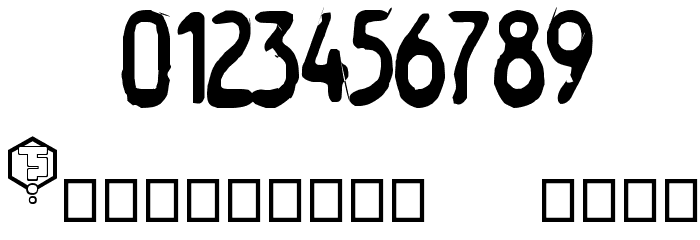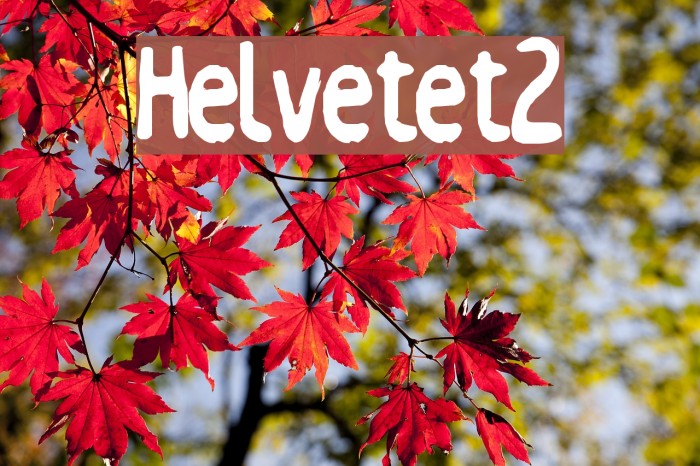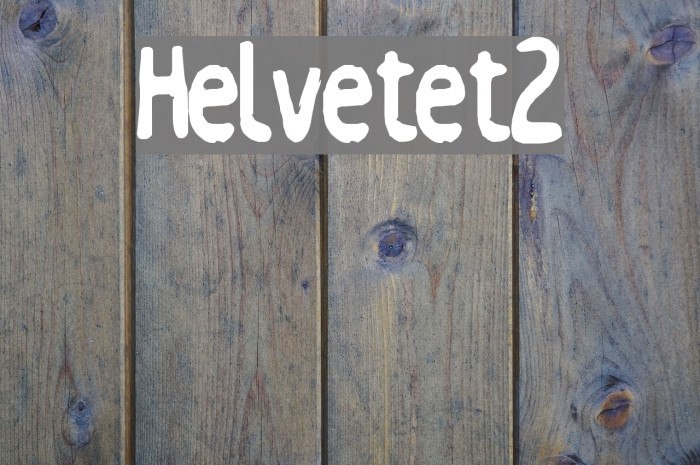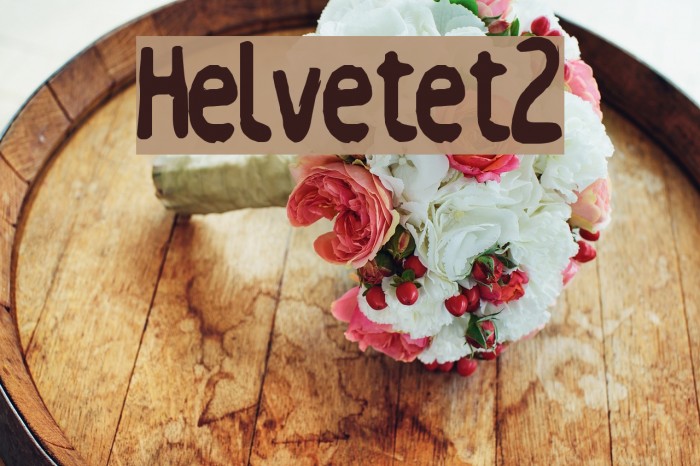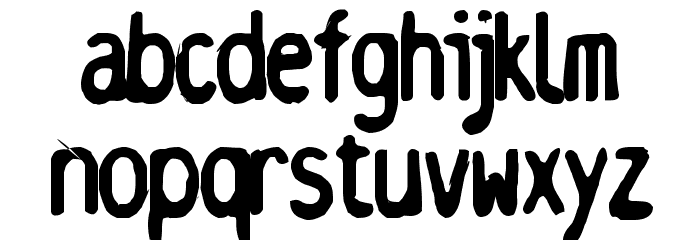
Helvetet2 Font
This font features a bold and playful style with a hand-drawn appearance. The characters are slightly irregular, giving it a casual and artistic feel. The uppercase and lowercase letters maintain a consistent thickness, while the numbers are clear and easy to read. The special characters blend seamlessly with the rest of the font, enhancing its versatility. The overall design is both modern and whimsical, making it suitable for creative projects that require a touch of personality.
A bold, playful, and hand-drawn style font with a modern and whimsical feel.
• Proposed Projects: Ideal for children's books, creative posters, playful branding, and artistic invitations.
• Category: Handwritten
• Overall Style: Modern, Whimsical
• Use Case: Headlines, Logos, Posters